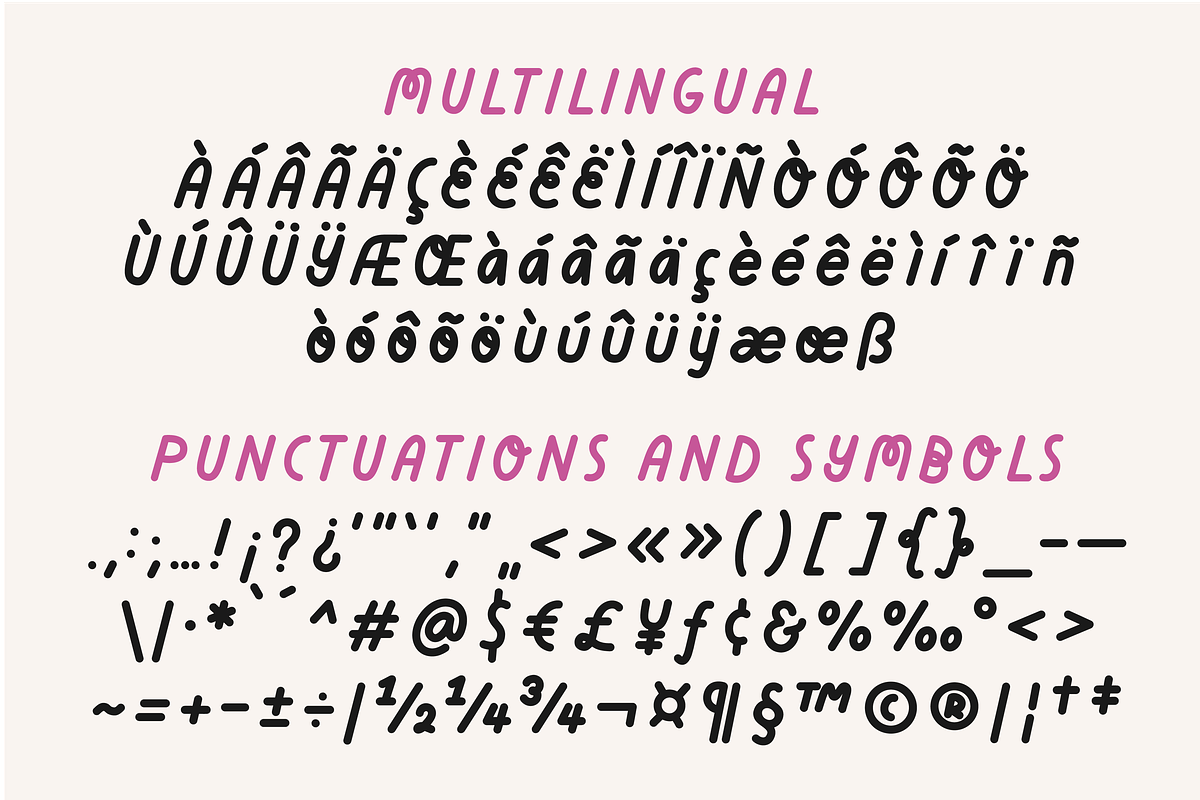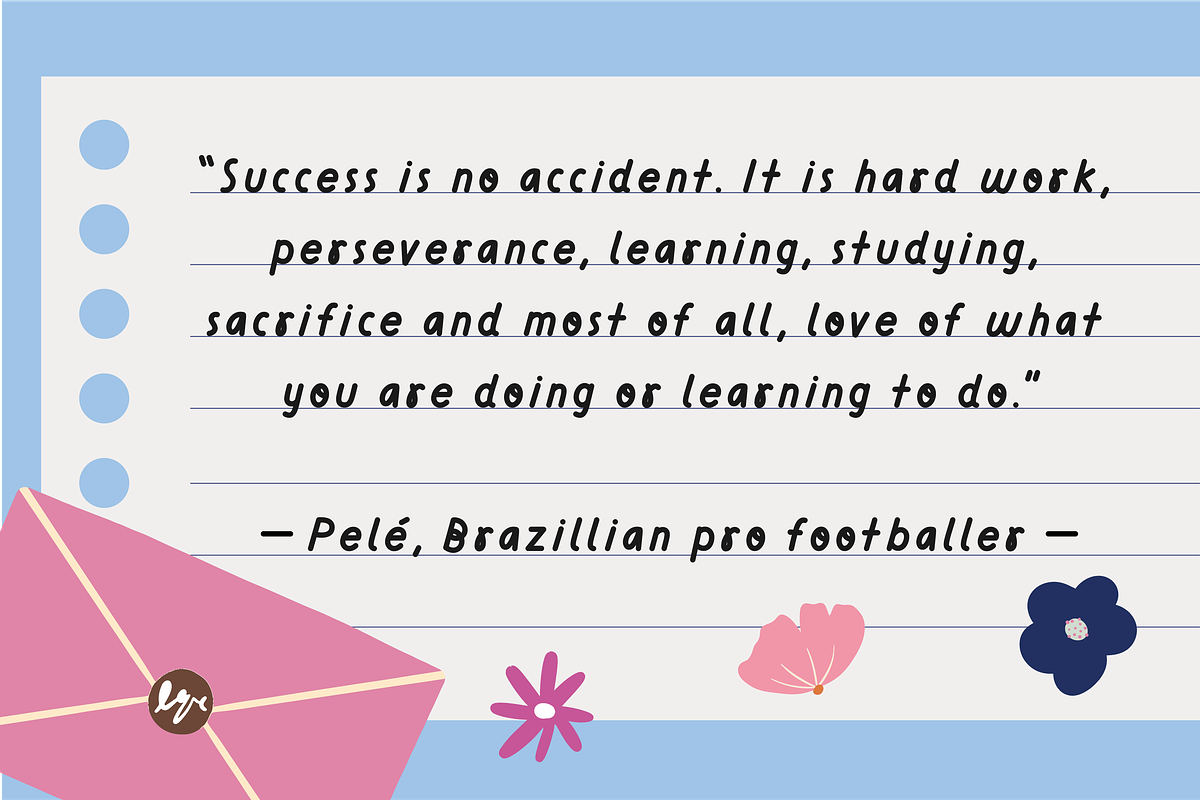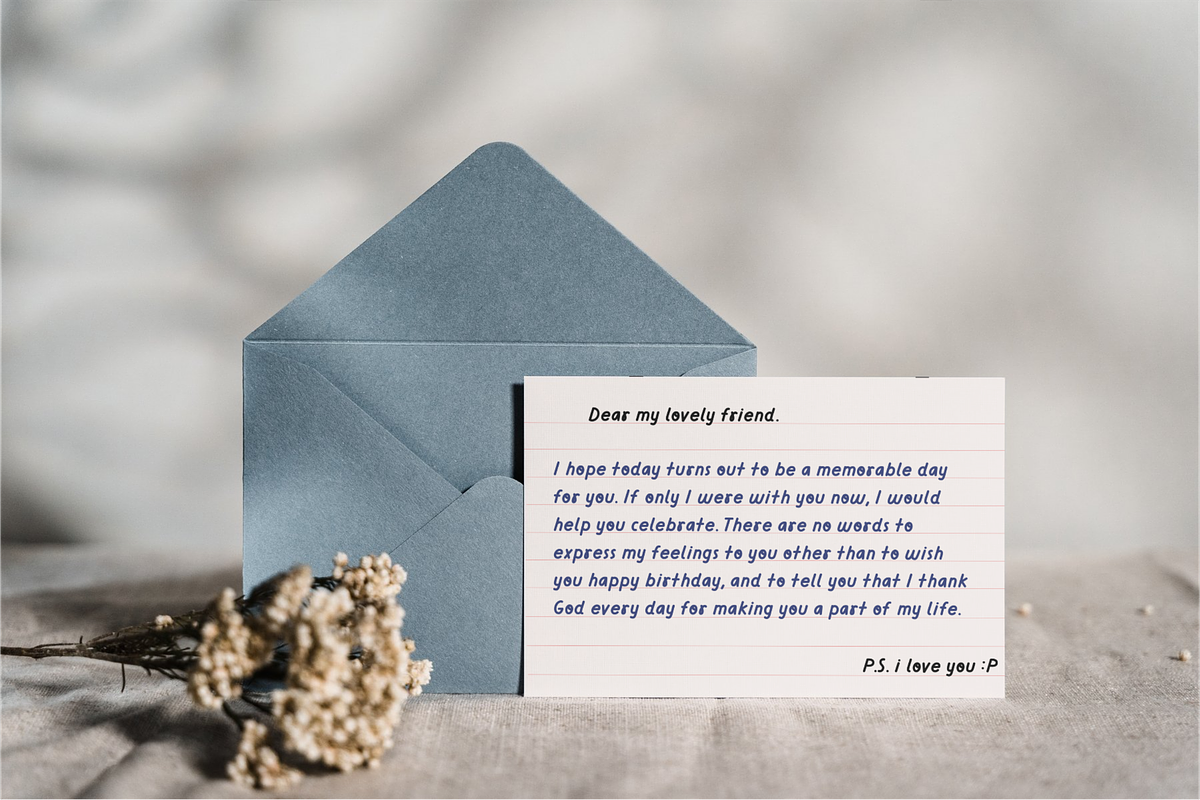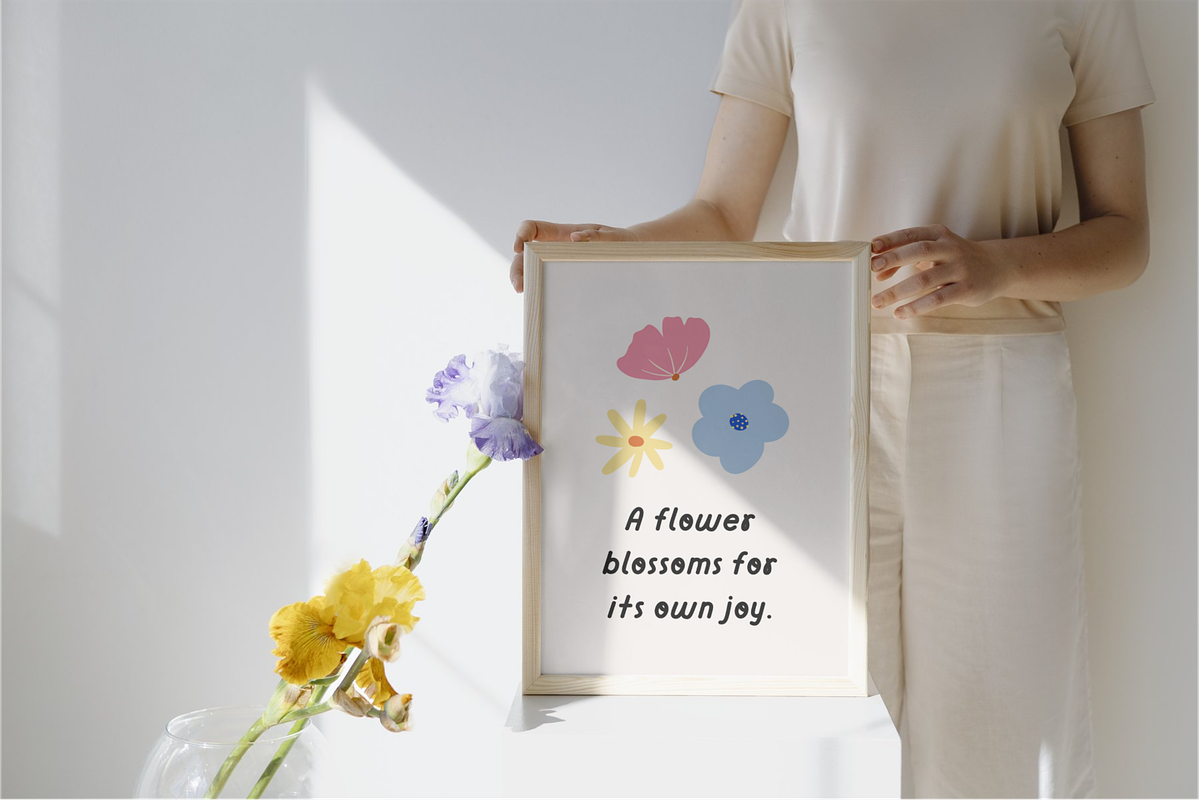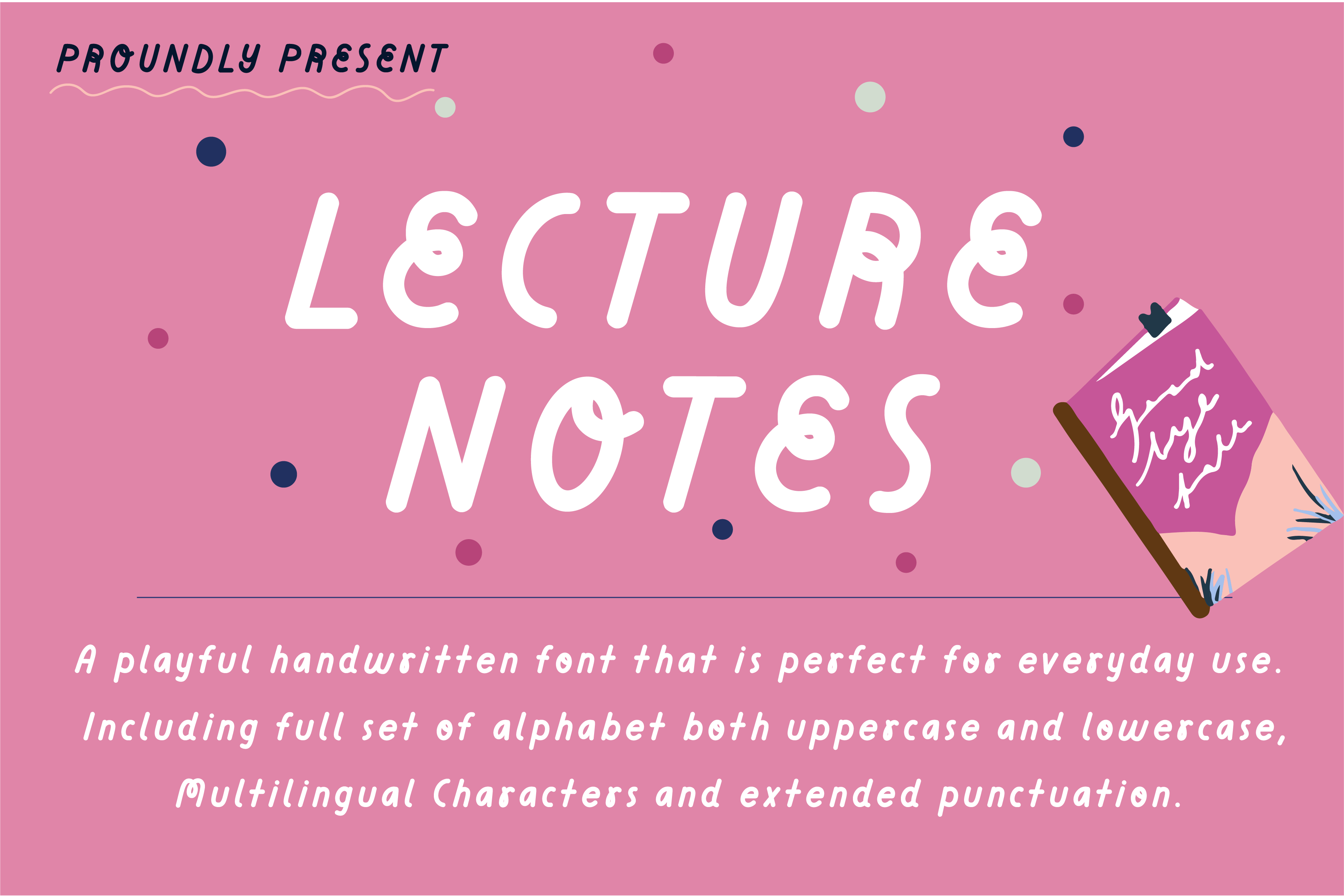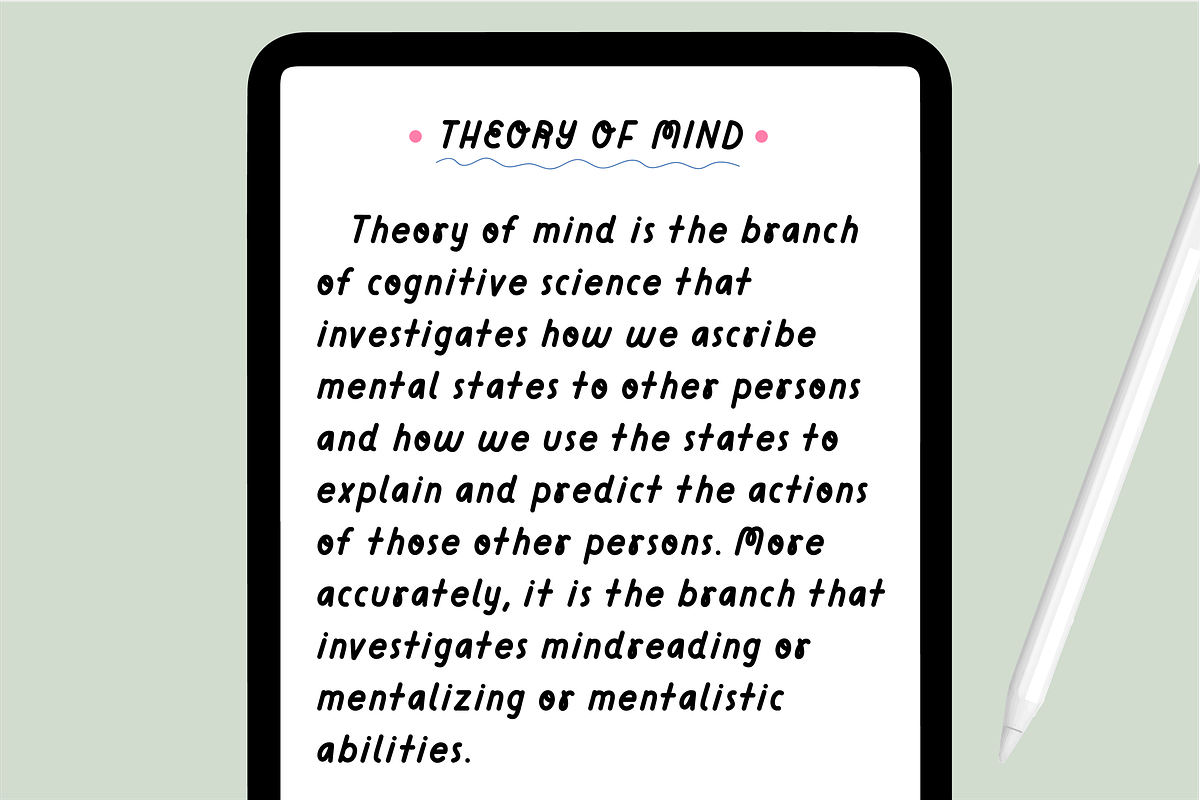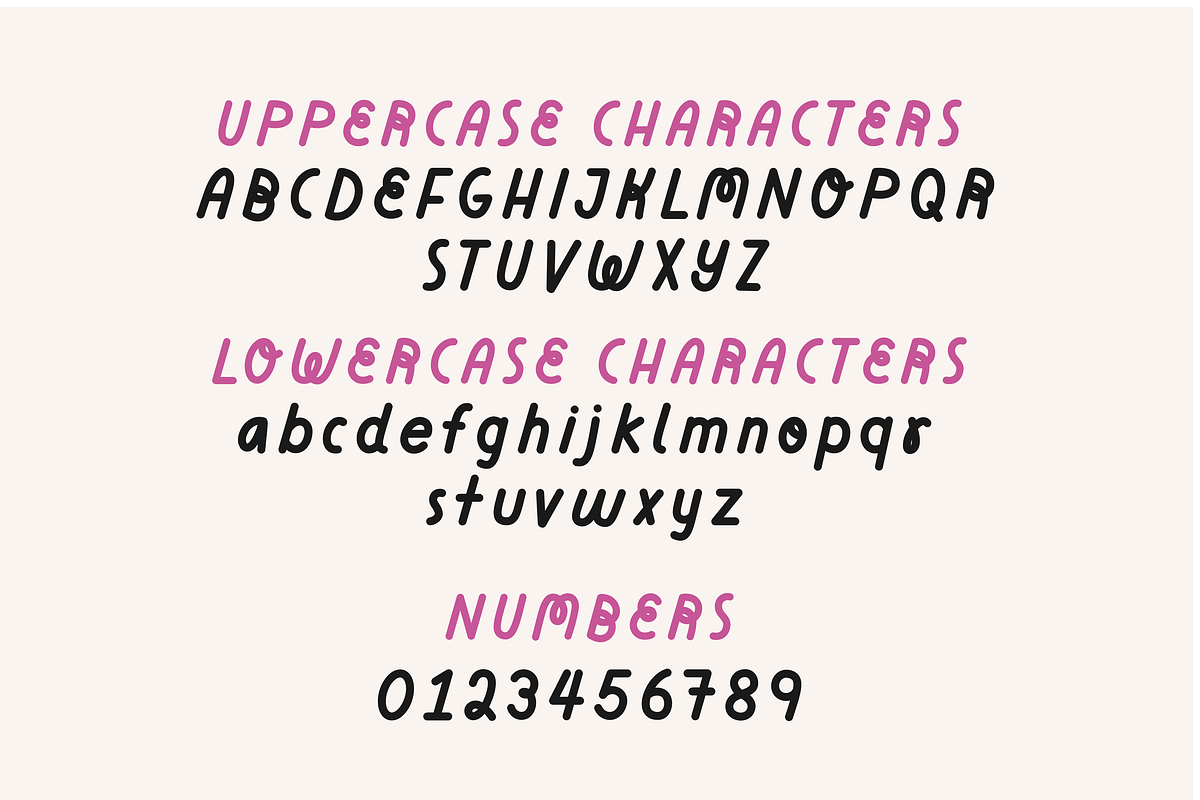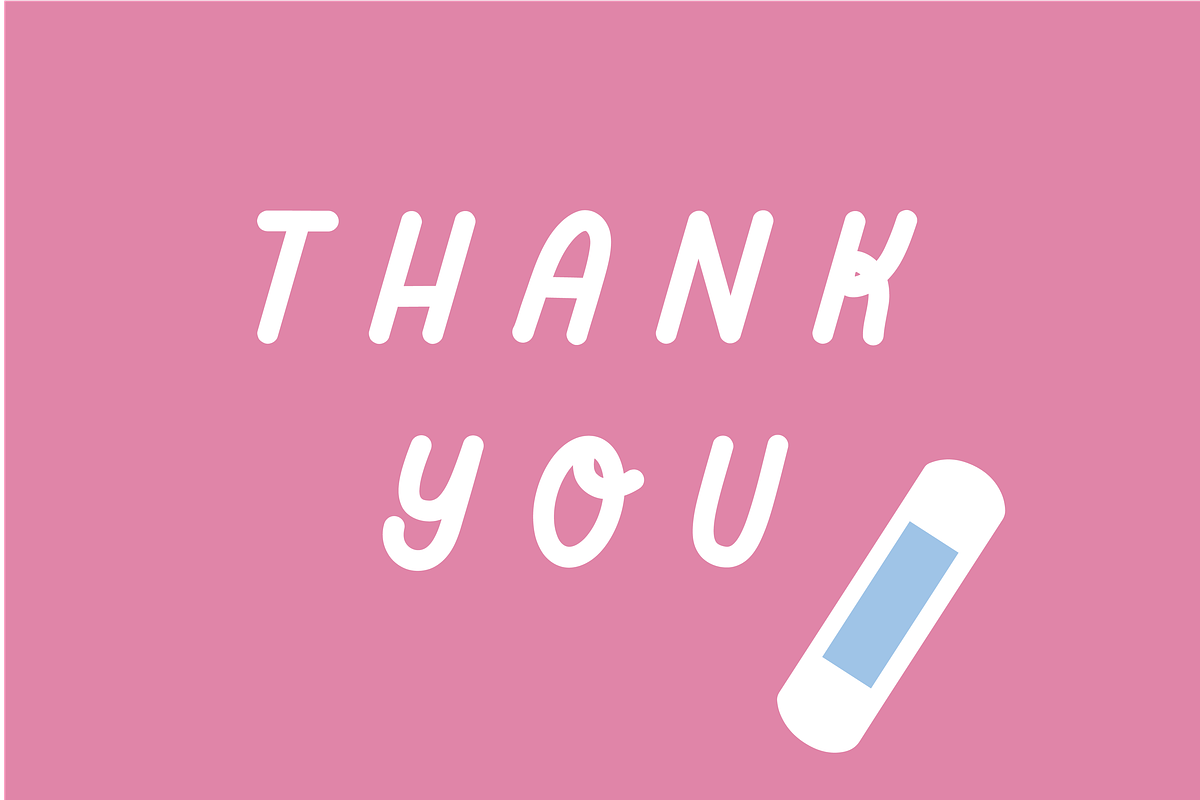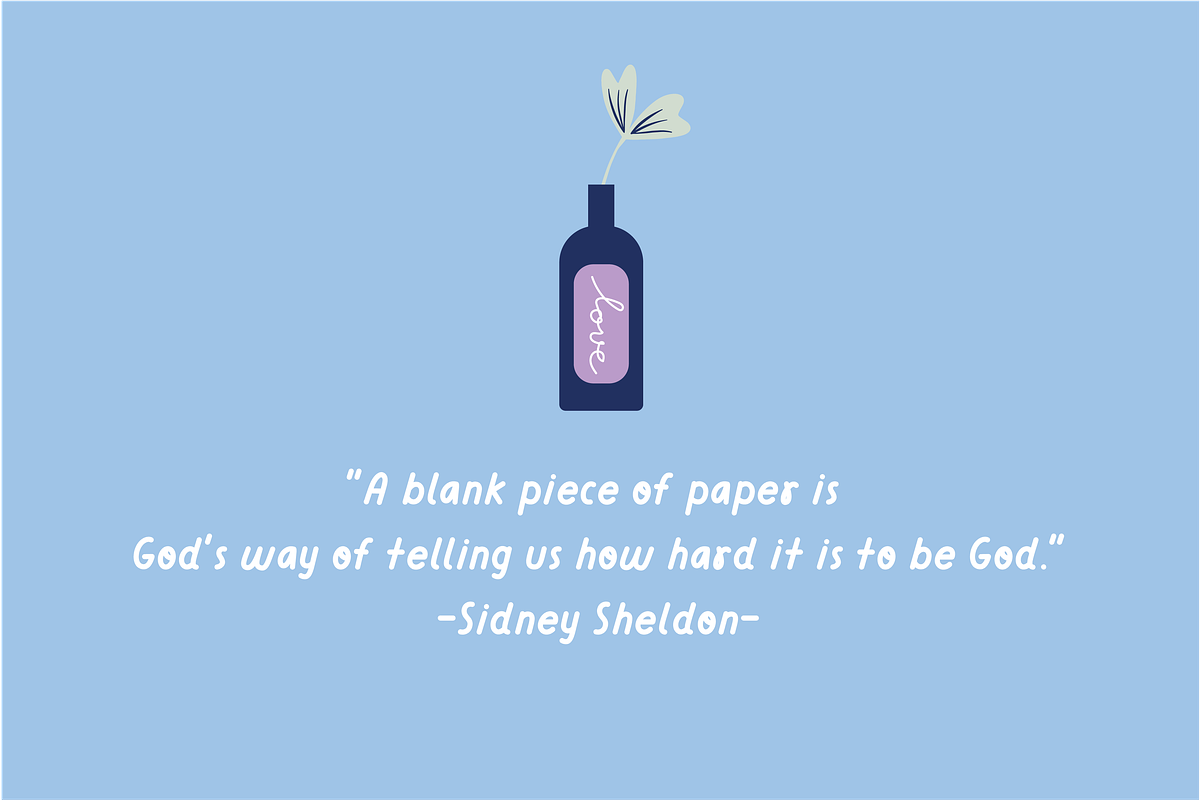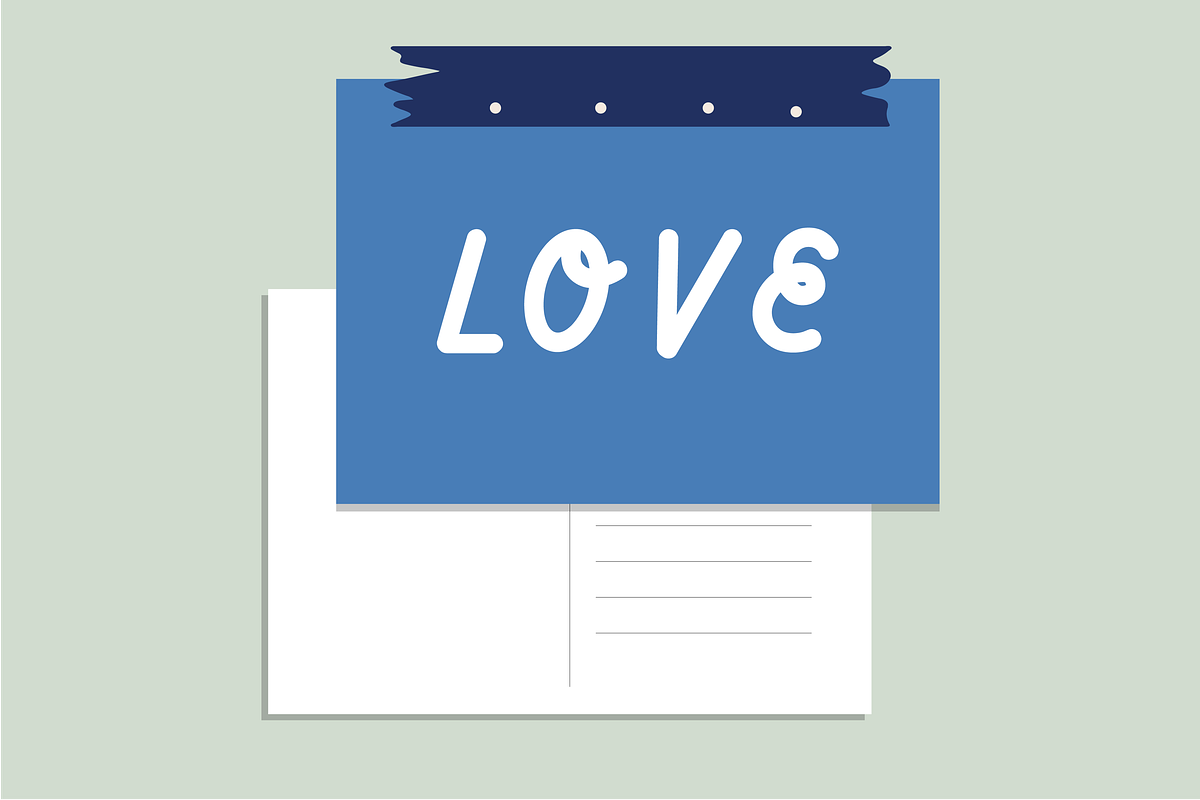
Lecture notes Font
LECTURE NOTE is a playful handwritten font. Perfect for everyday use such as writing diary or note, creating posters, logos, greeting cards, packaging and so much more!
Lecture Note Font Features:
- Full set of alphabet both uppercase and lowercase.
- Extended punctuation.
- Multilingual Characters support.